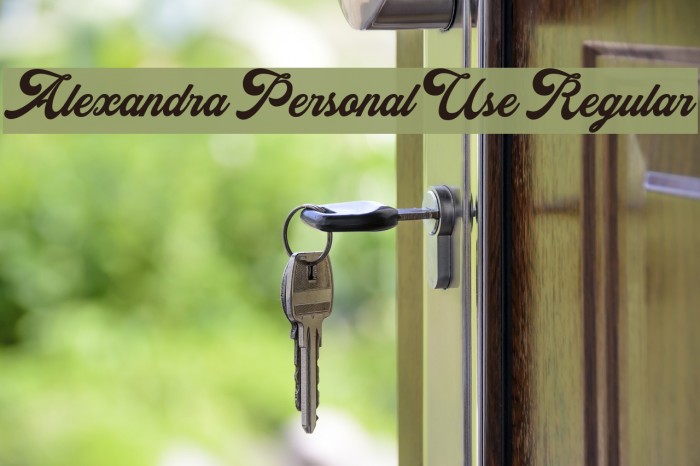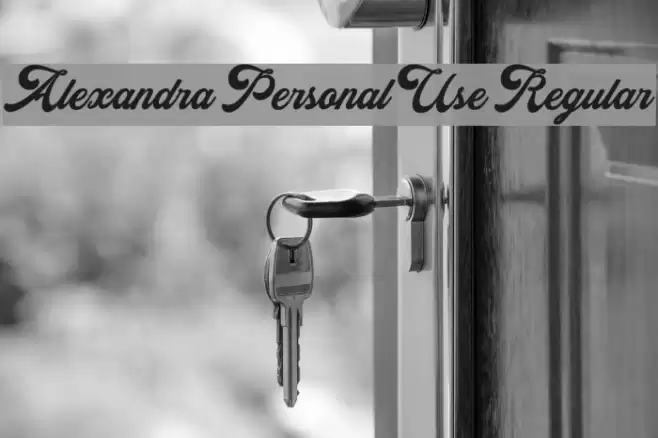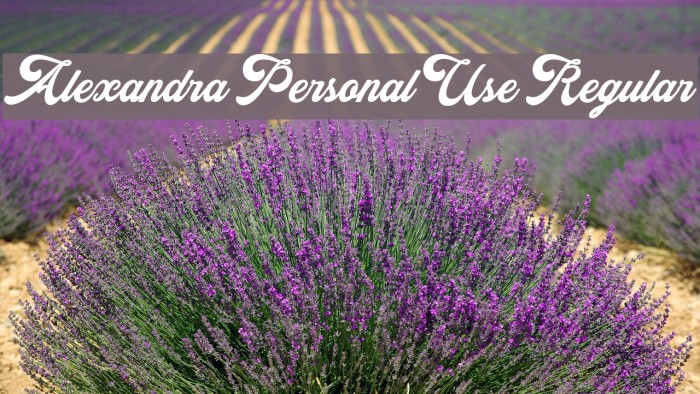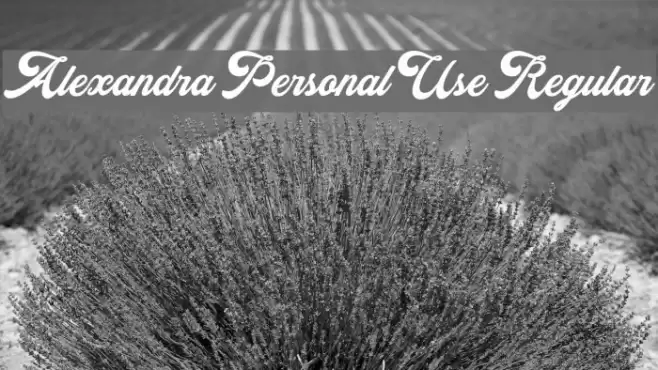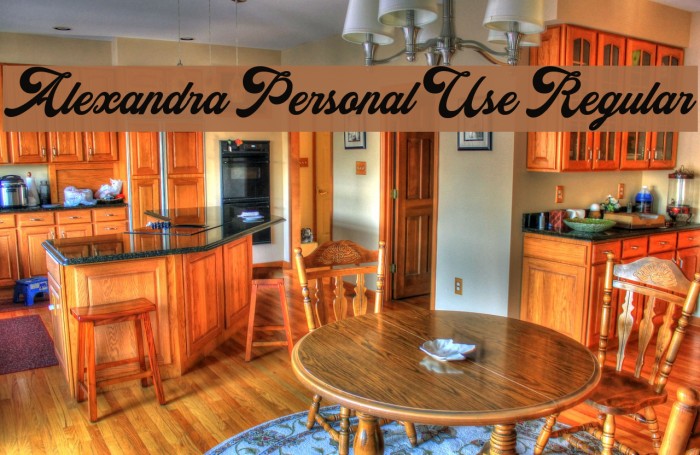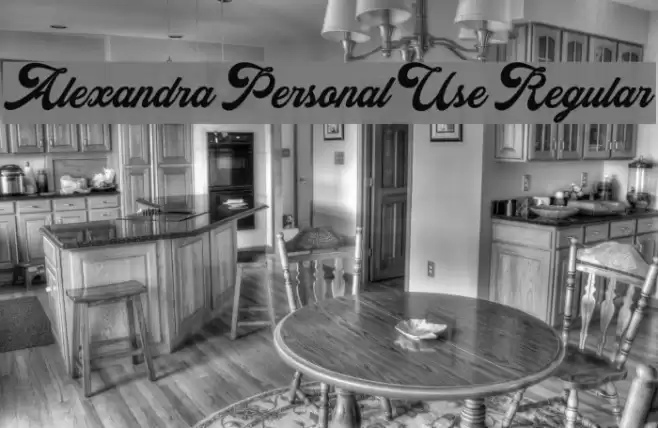
Alexandra Personal Use Regular Font
Alexandra Personal Use Regular Description
This font features a flowing, cursive style with elegant, sweeping lines that give it a sophisticated and artistic appearance. The uppercase letters are particularly ornate, with intricate loops and flourishes that add a touch of classic elegance. The lowercase letters maintain a consistent flow, enhancing readability while preserving the decorative nature. The numbers and special characters are designed to match the overall aesthetic, ensuring a cohesive look across all text. This font's bold strokes and smooth curves make it ideal for projects that require a touch of elegance and flair.
| Overall Style | Classic |
| Use Case | Logos, Invitations, Decorative text |
| Proposed Projects | Ideal for wedding invitations, branding, logo design, and elegant stationery. |